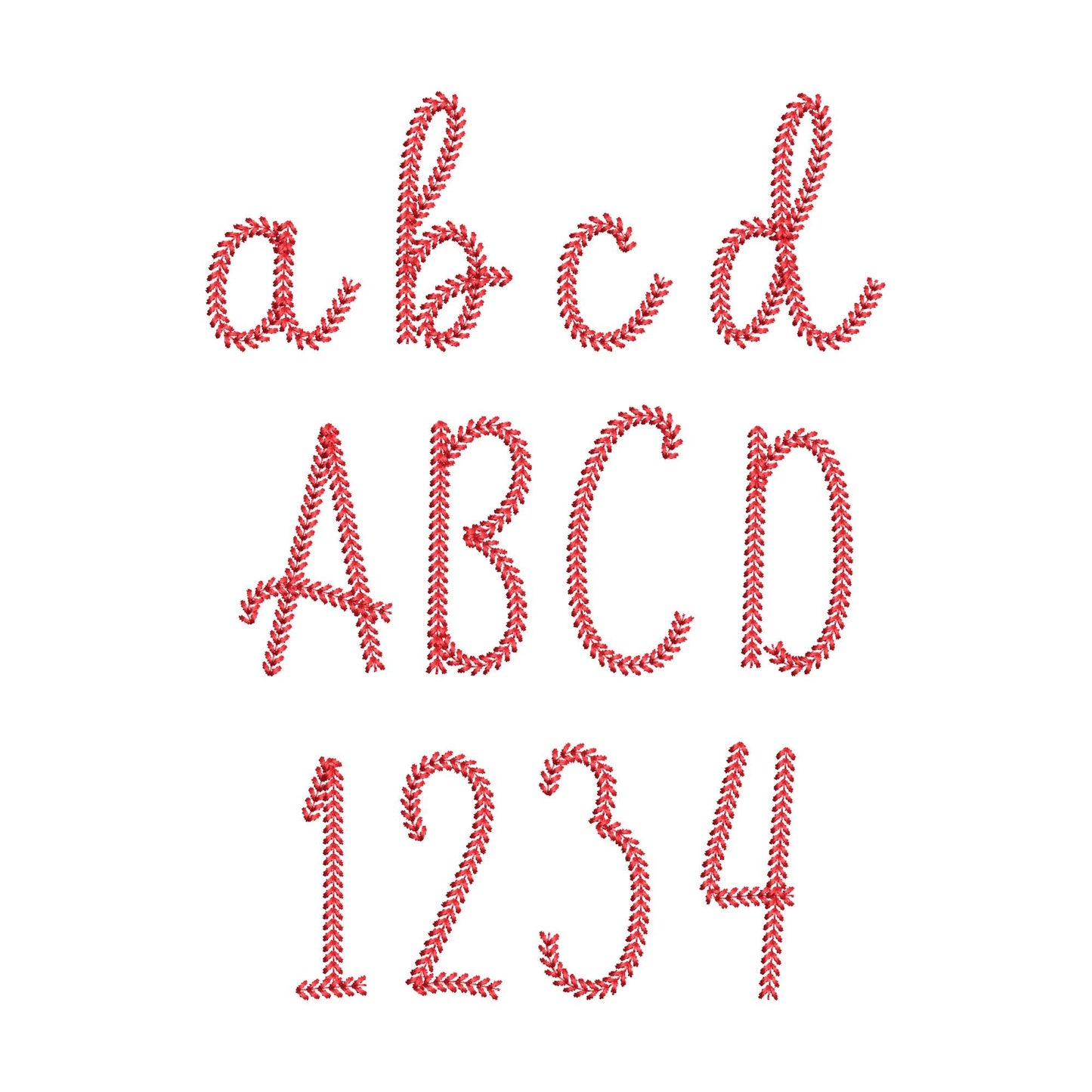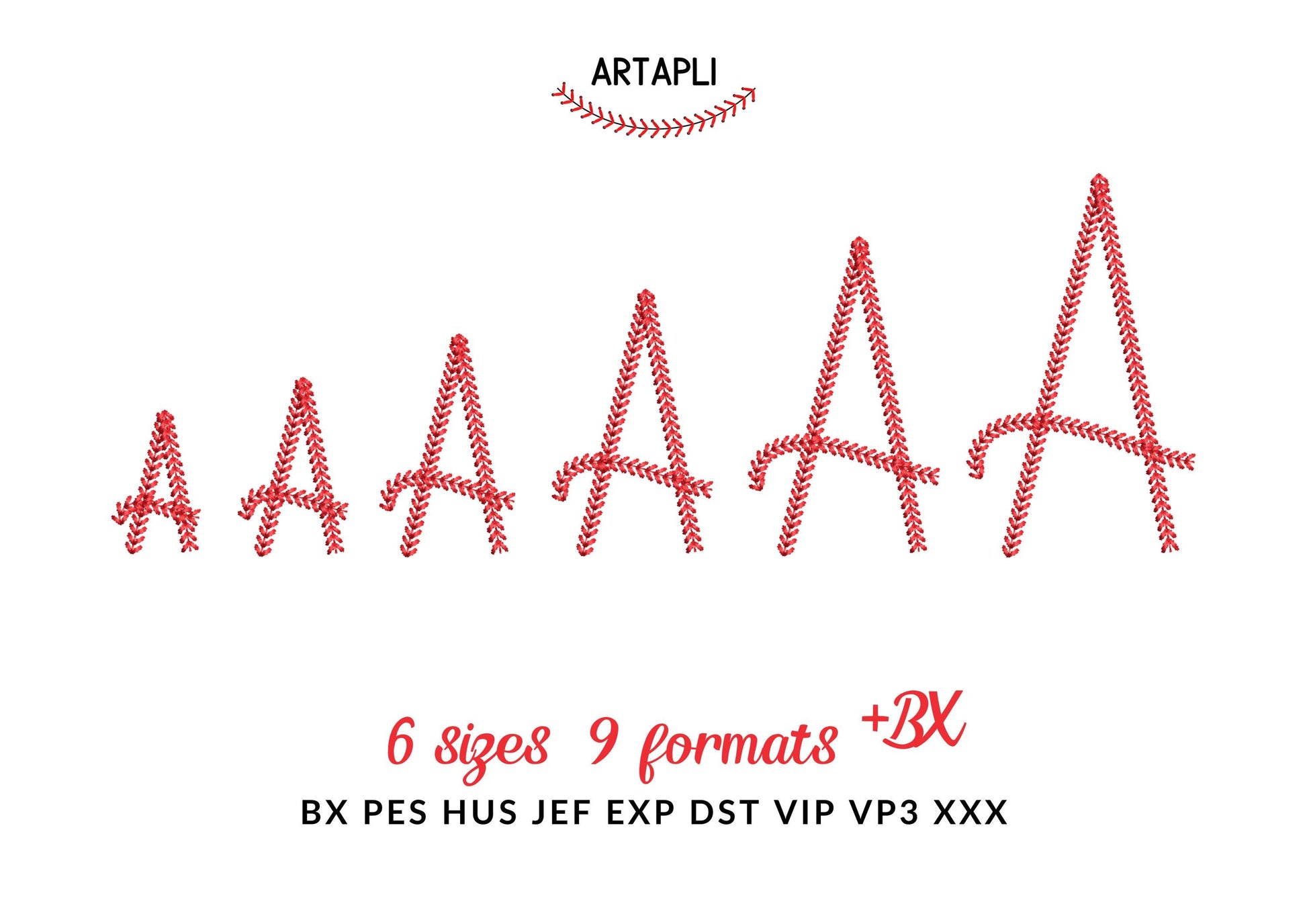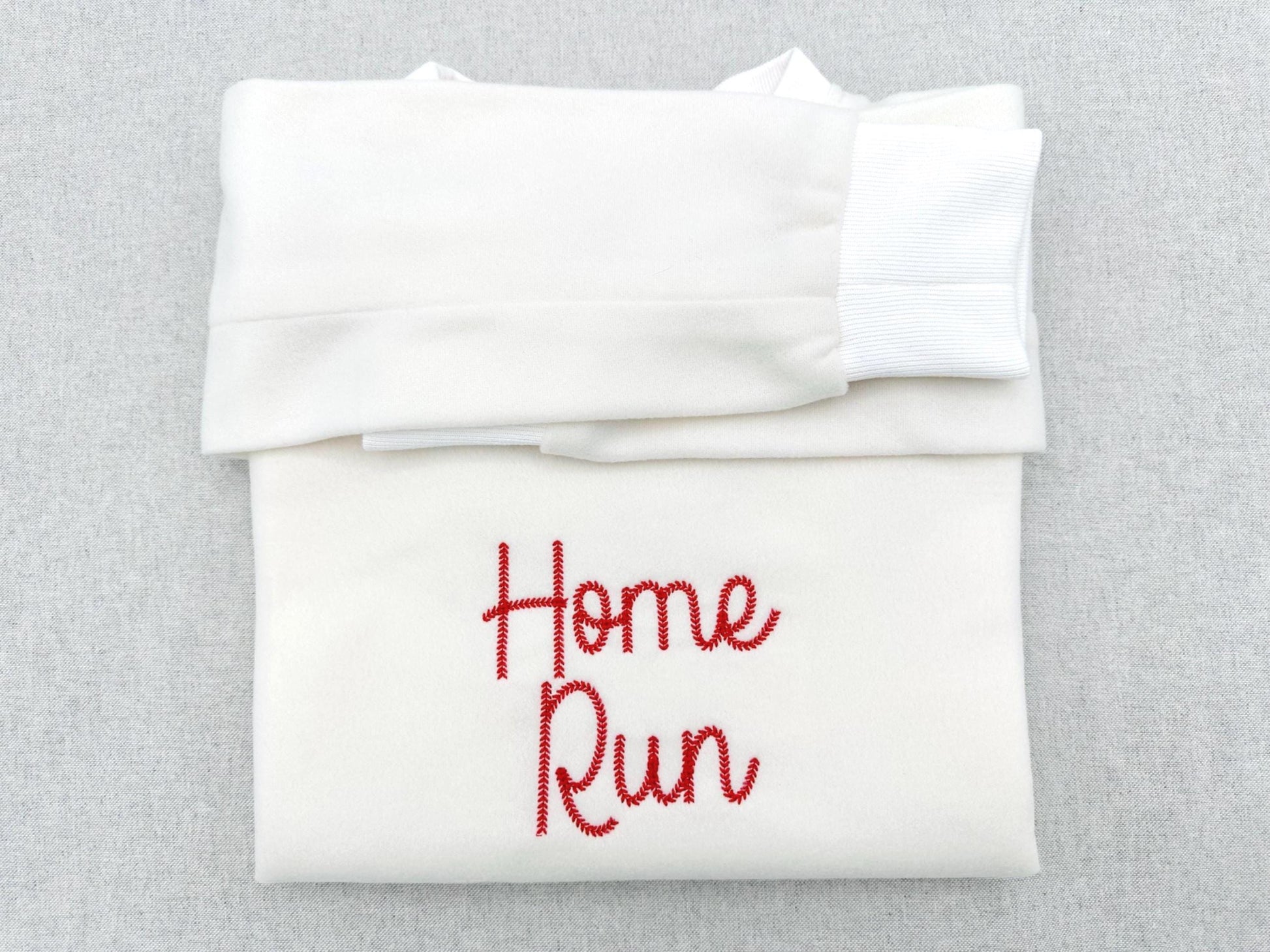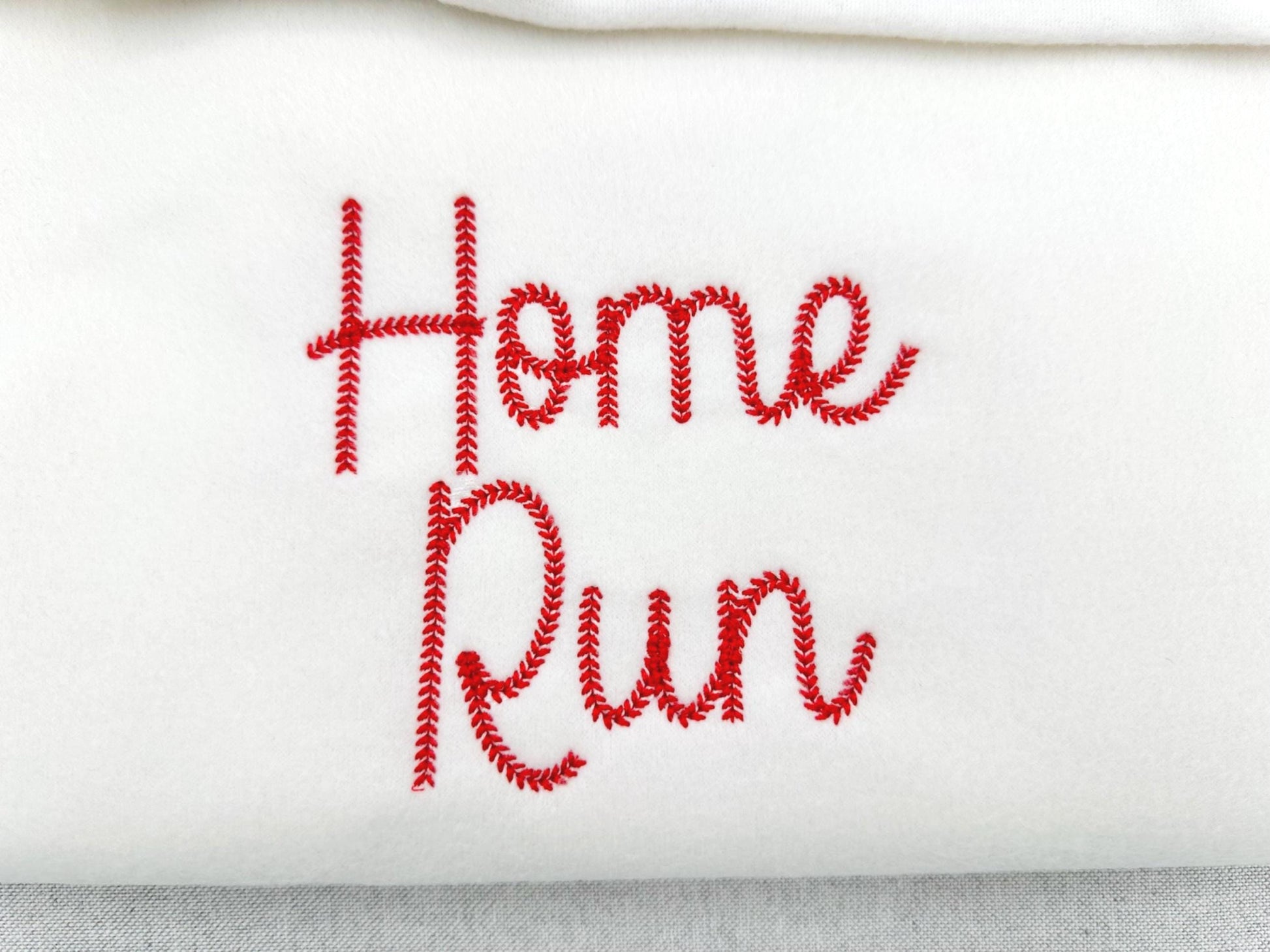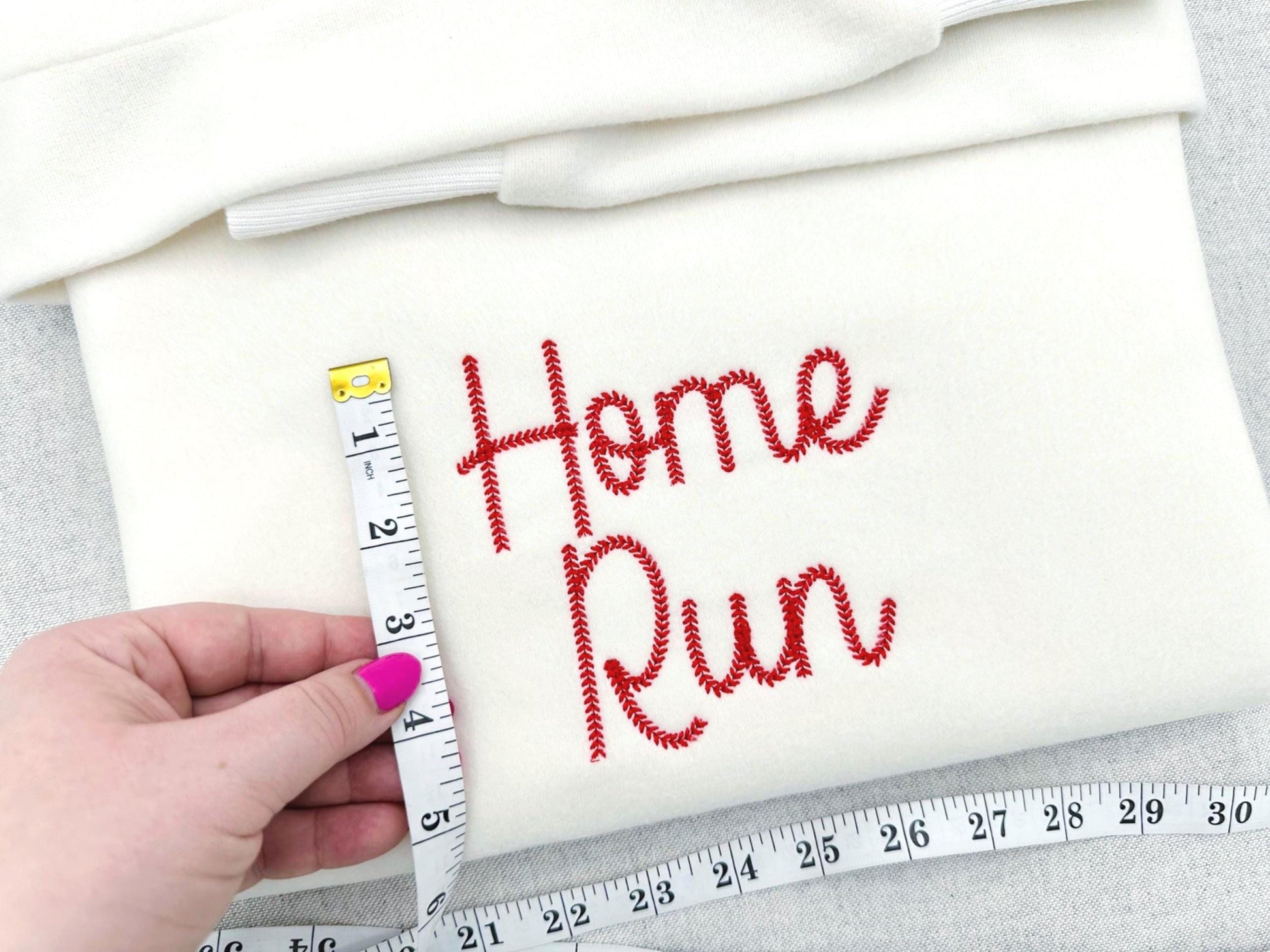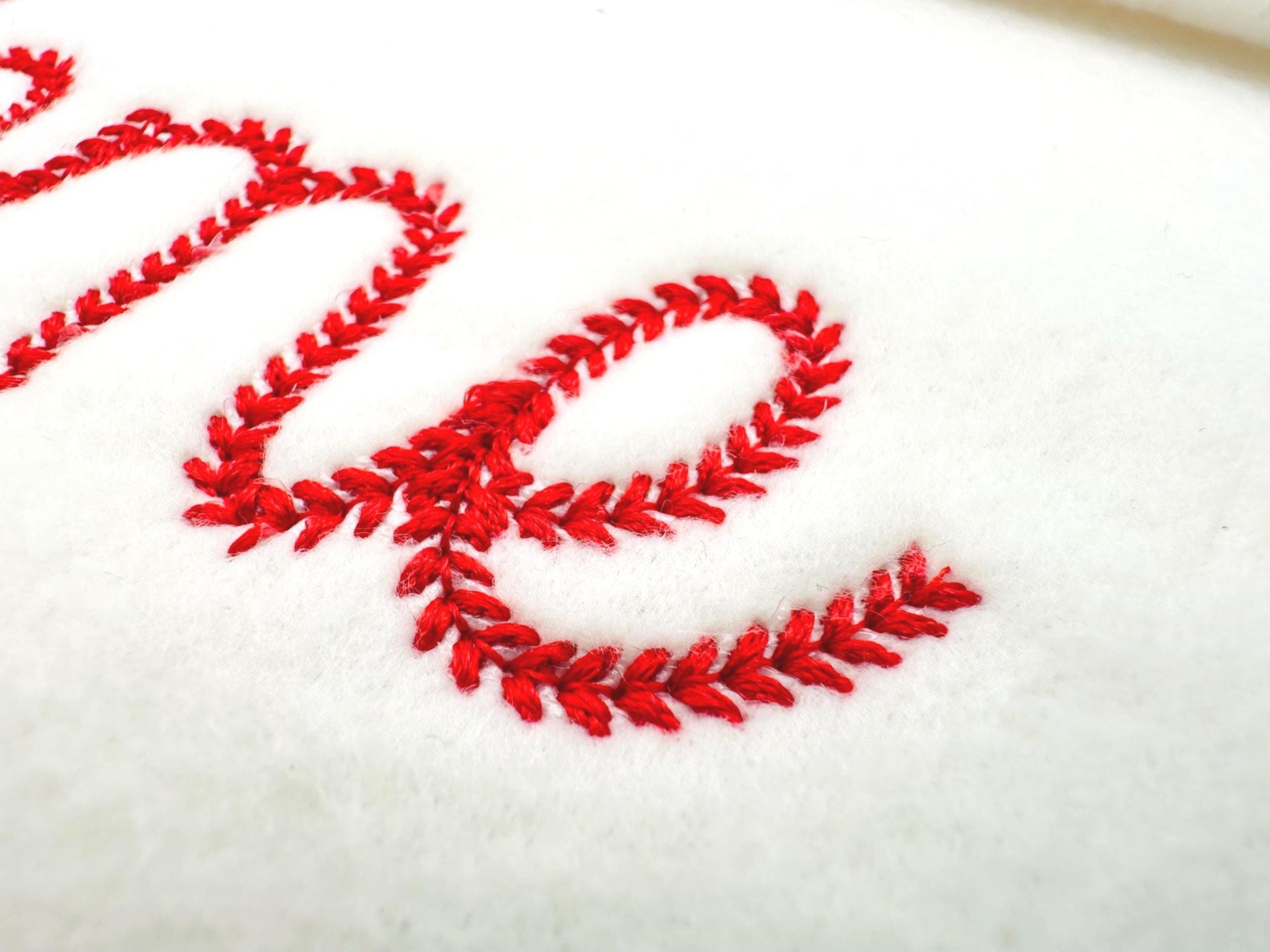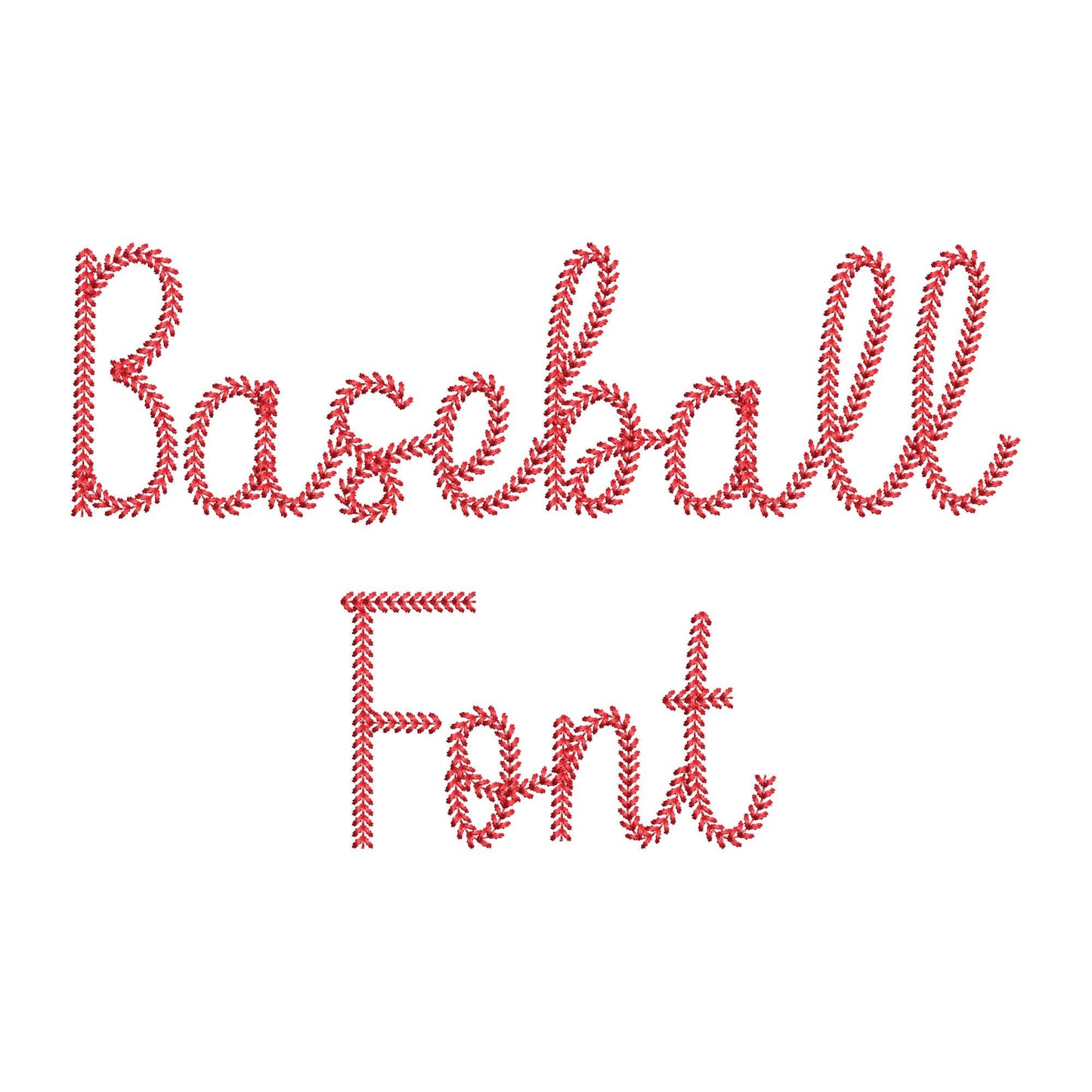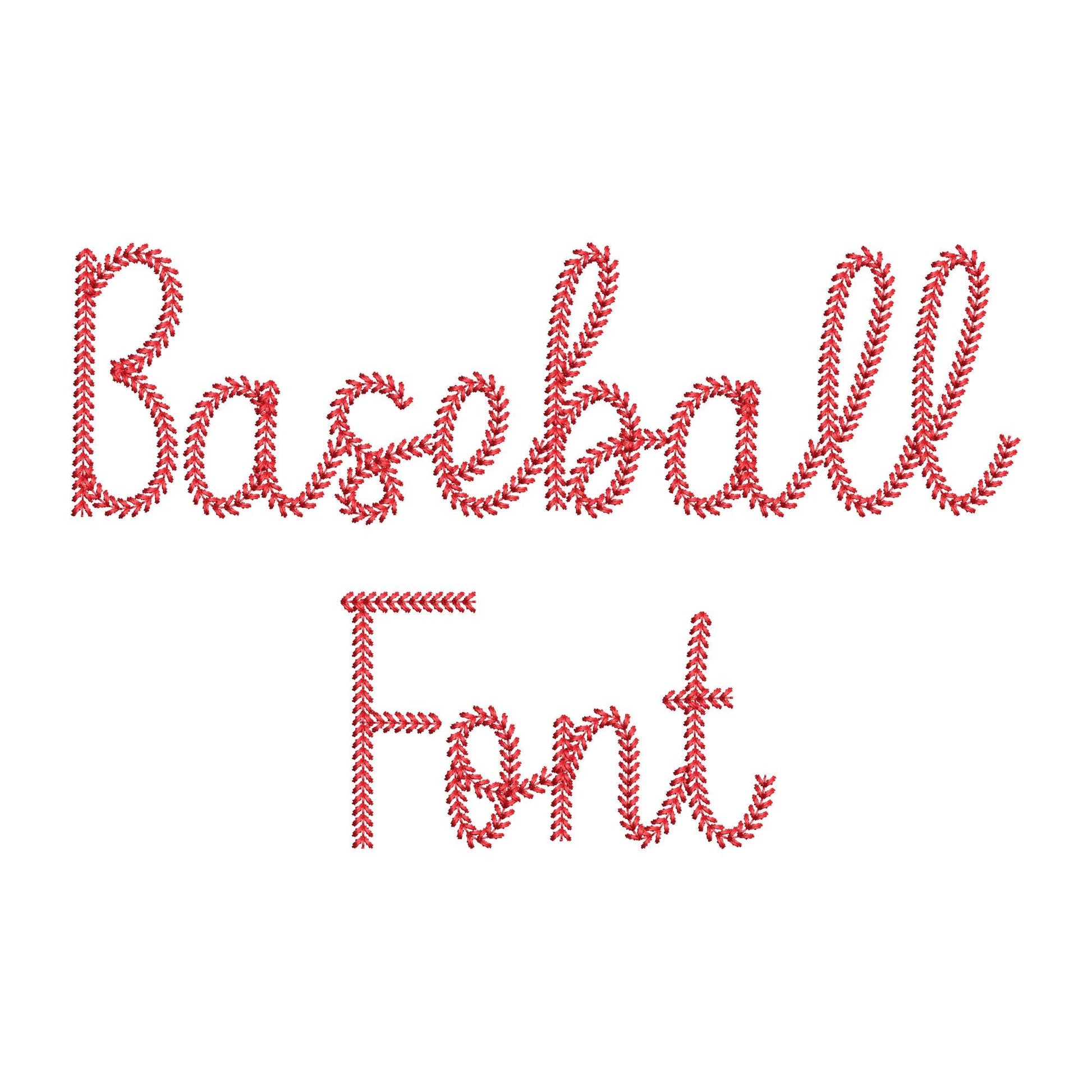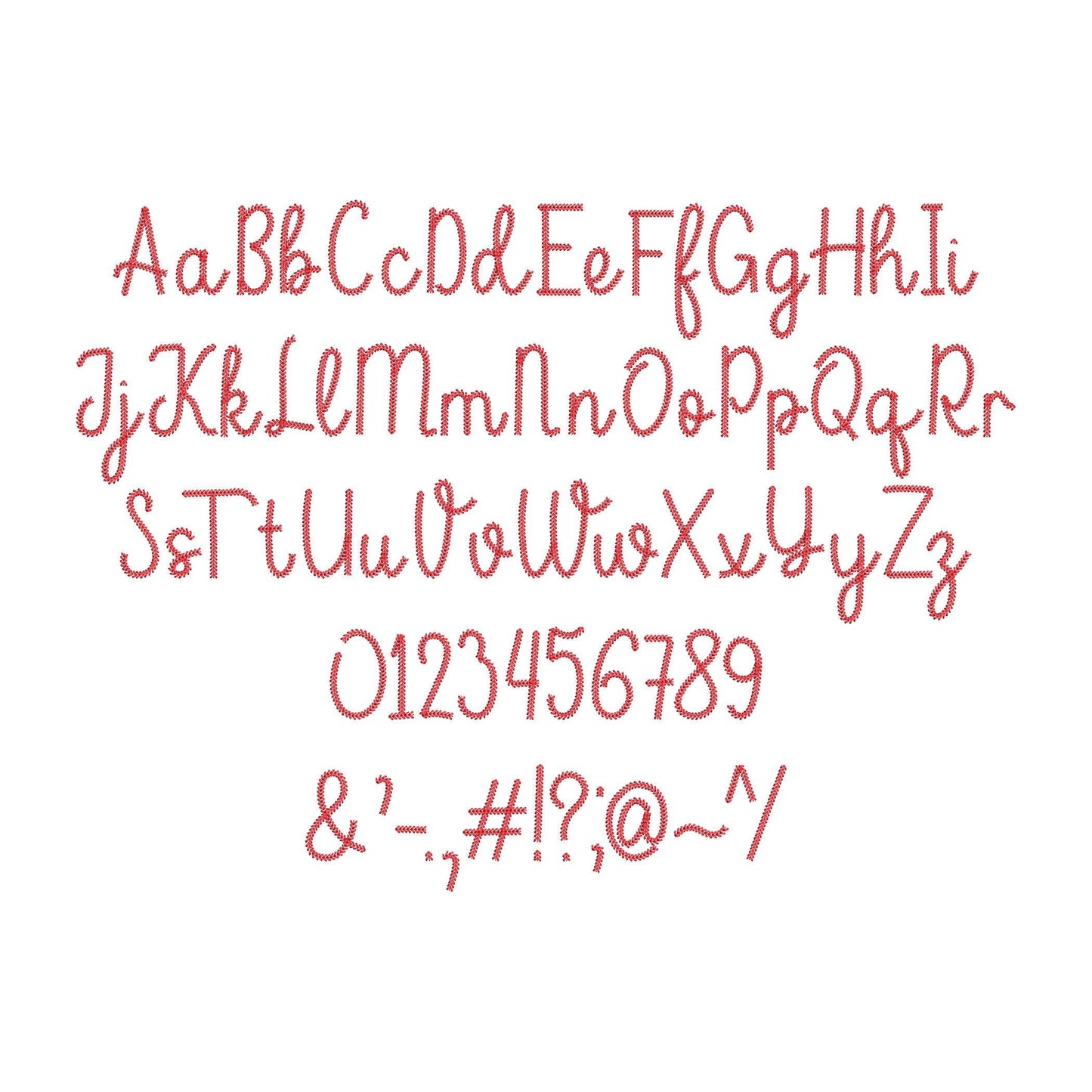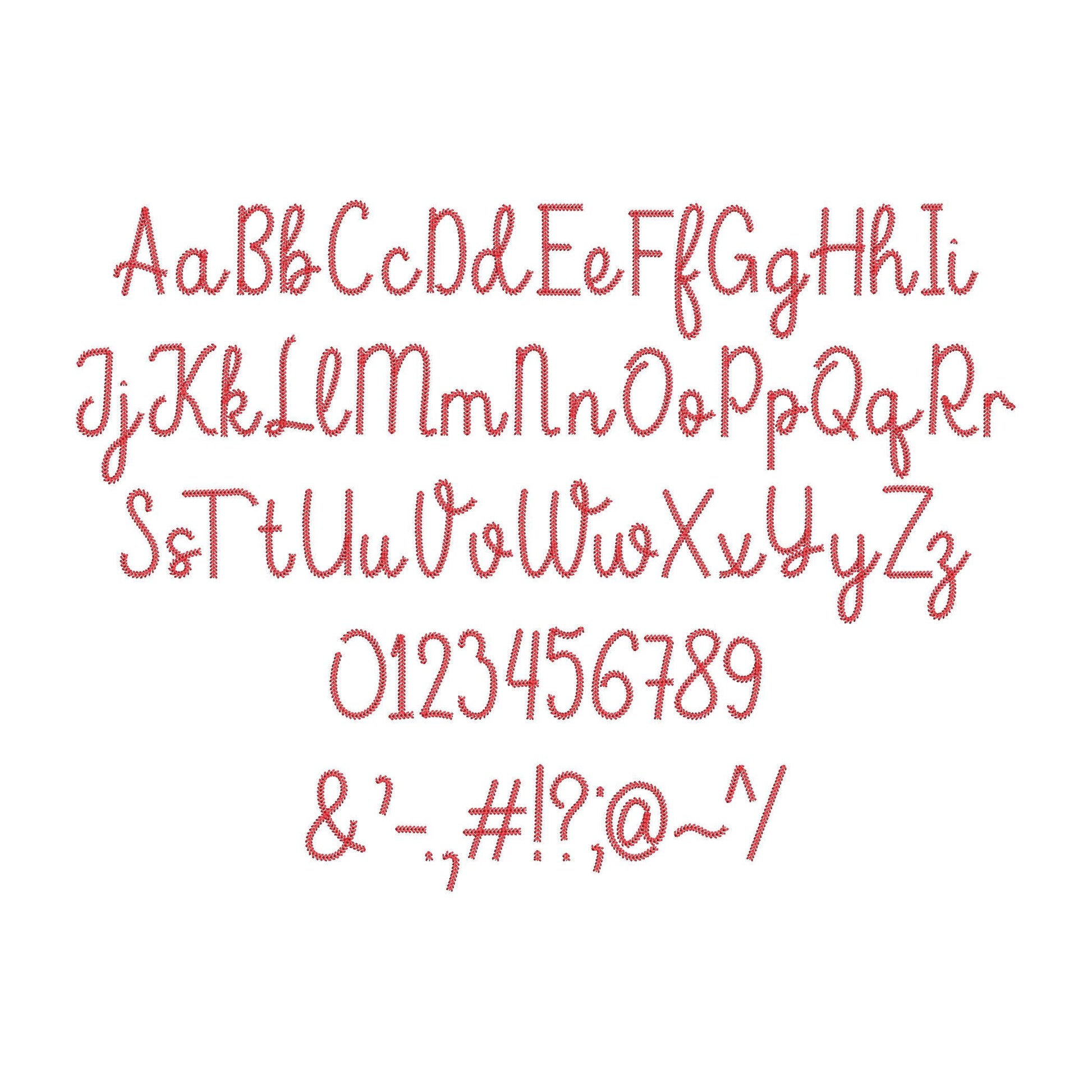
Handwritten Baseball Font
The letters come in six sizes: 1.4, 1.7, 2.1, 2.5, 3 and 3.6 inches. Includes uppercase and lowercase letters, numbers 0-9 and punctuation.
- Handwritten baseball font: uppercase and lowercase letters, numbers 0-9 and punctuation
- 6 letter sizes, 1.4 to 3.6 in